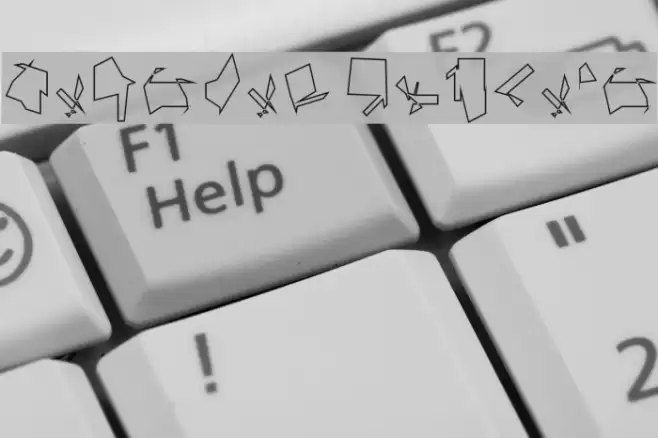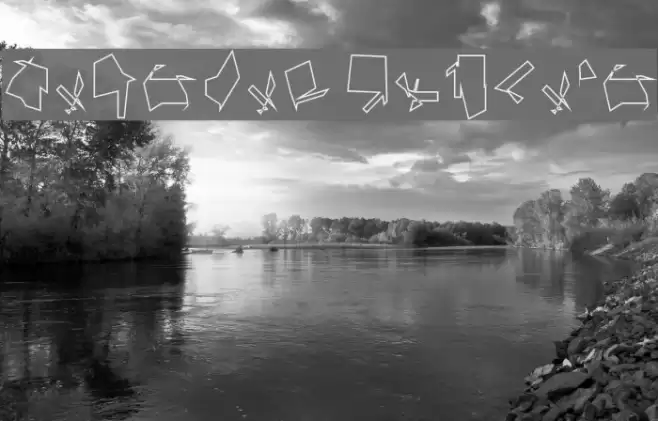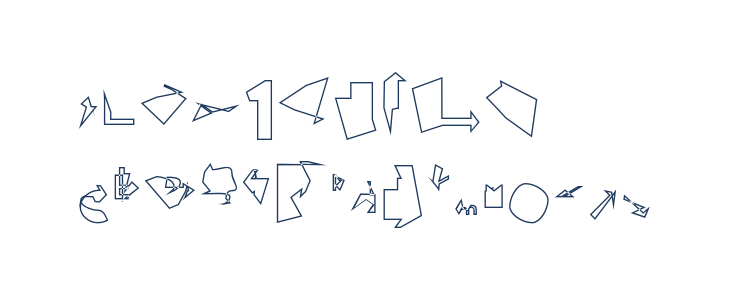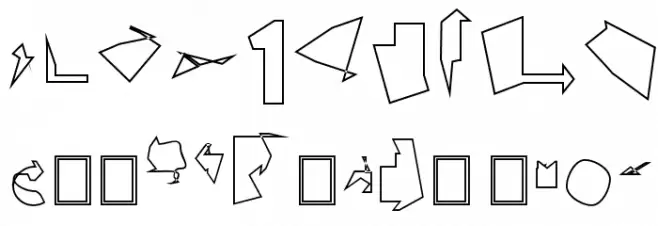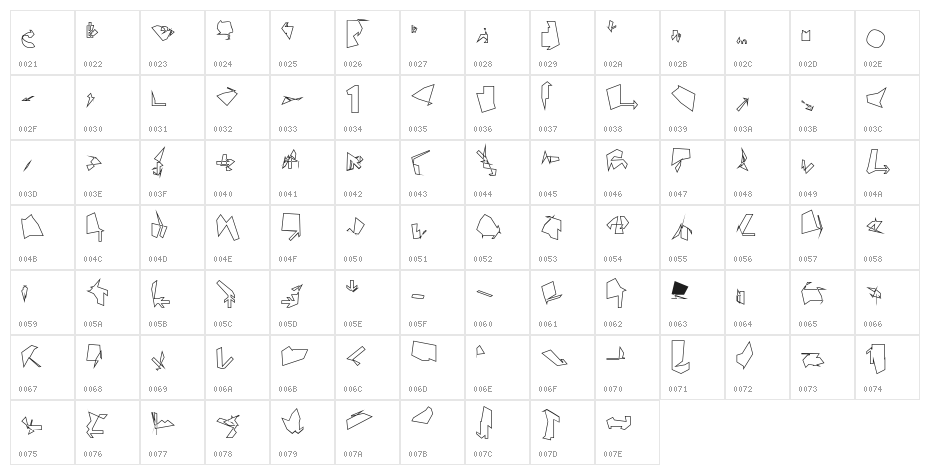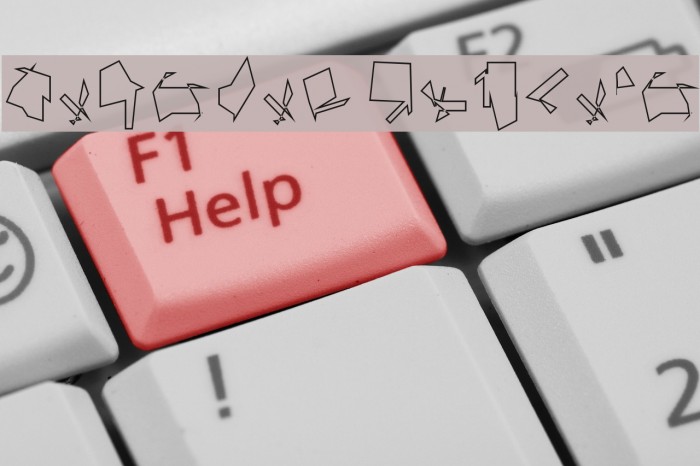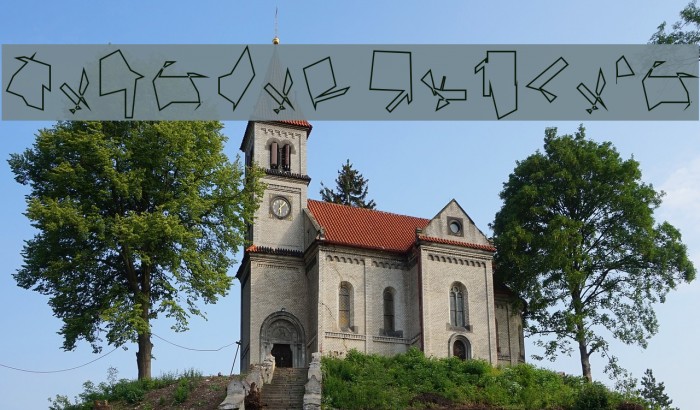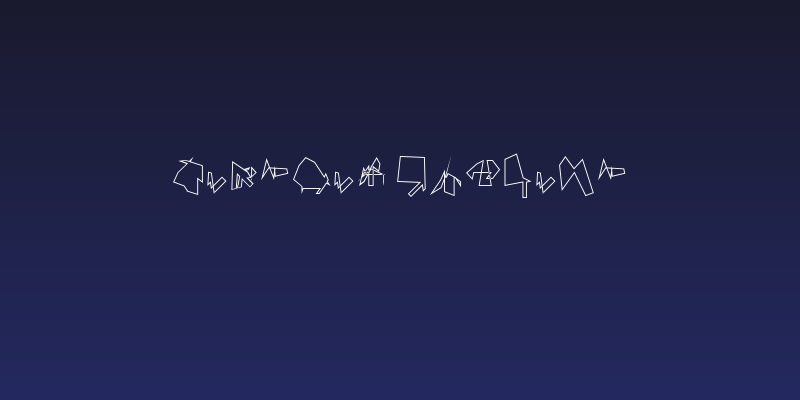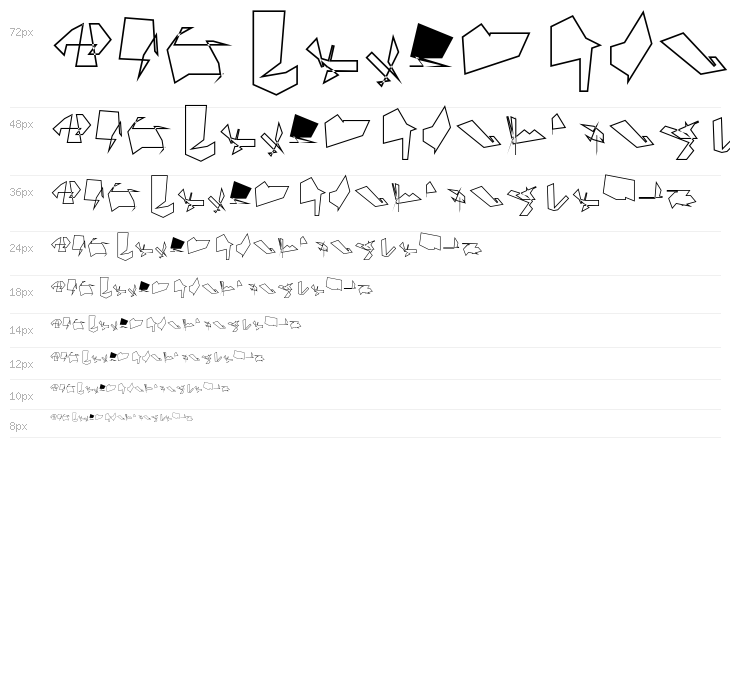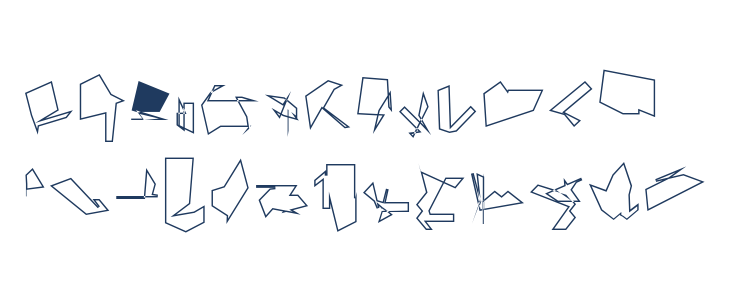
Siberia Outline Font
Siberia Outline Description
This font features an abstract, geometric design with sharp angles and irregular shapes, creating a highly stylized and unconventional appearance. Each character is uniquely crafted with a sense of movement and dynamism, resembling abstract art more than traditional typography. The outlines are bold and pronounced, giving the font a striking presence. The overall design is asymmetrical, with varying line thicknesses and unexpected angles, making it ideal for creative and artistic projects that require a distinctive and modern aesthetic.
An abstract, geometric font with sharp angles and bold outlines from Uncategorized fonts.
- Proposed Projects: Ideal for modern art projects, album covers, avant-garde posters, and experimental graphic design.
- Character Spacing: Wide
- Use Case: Logos, Headlines, Artistic Displays